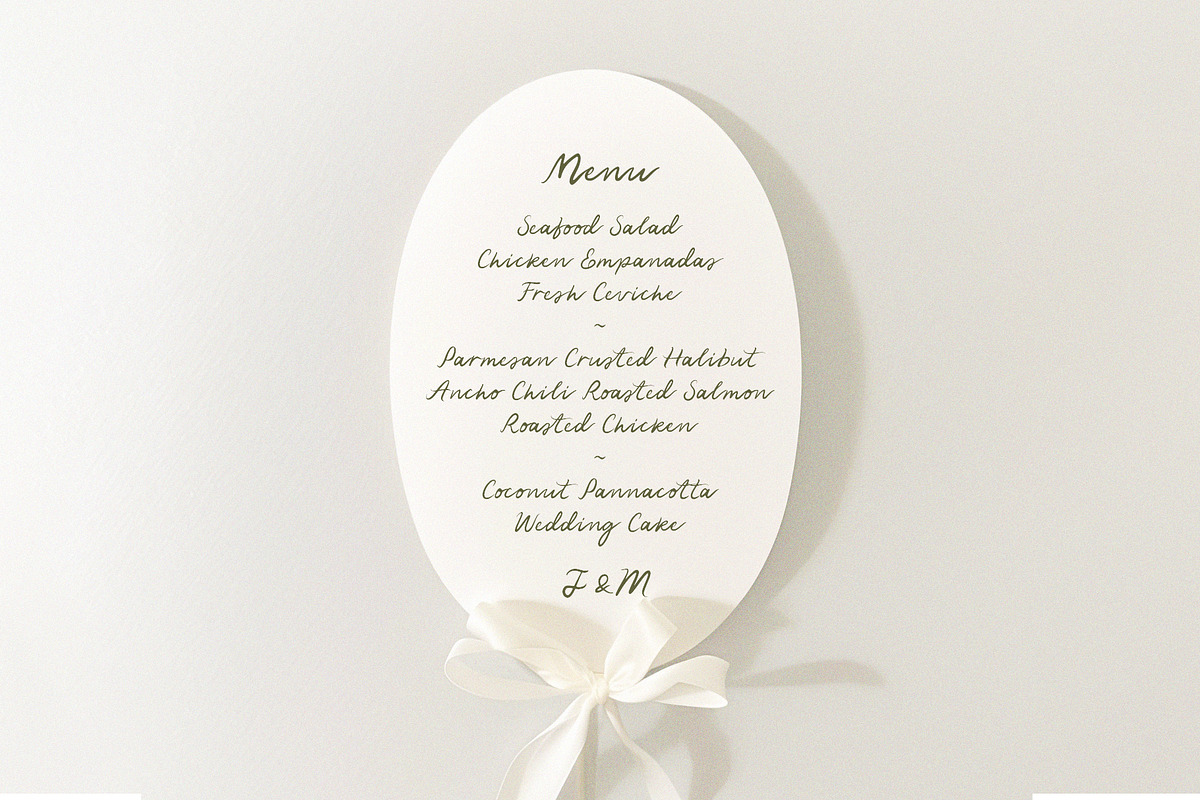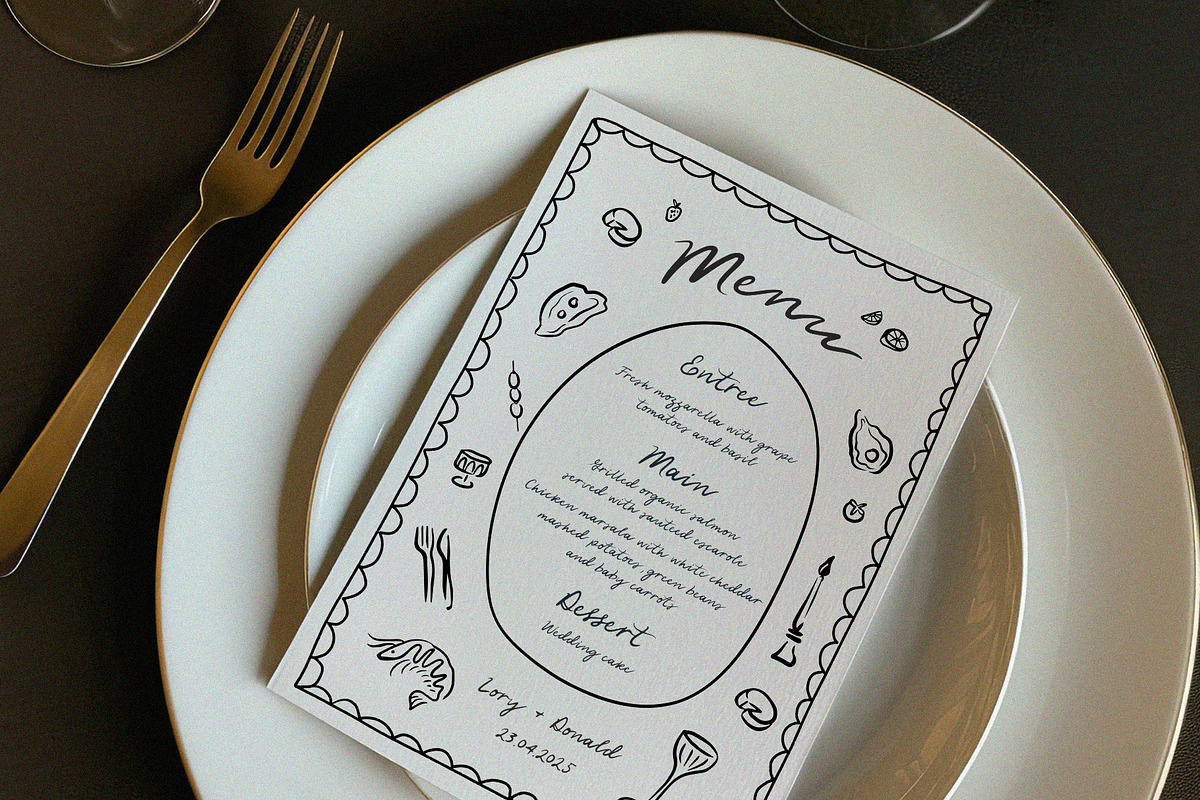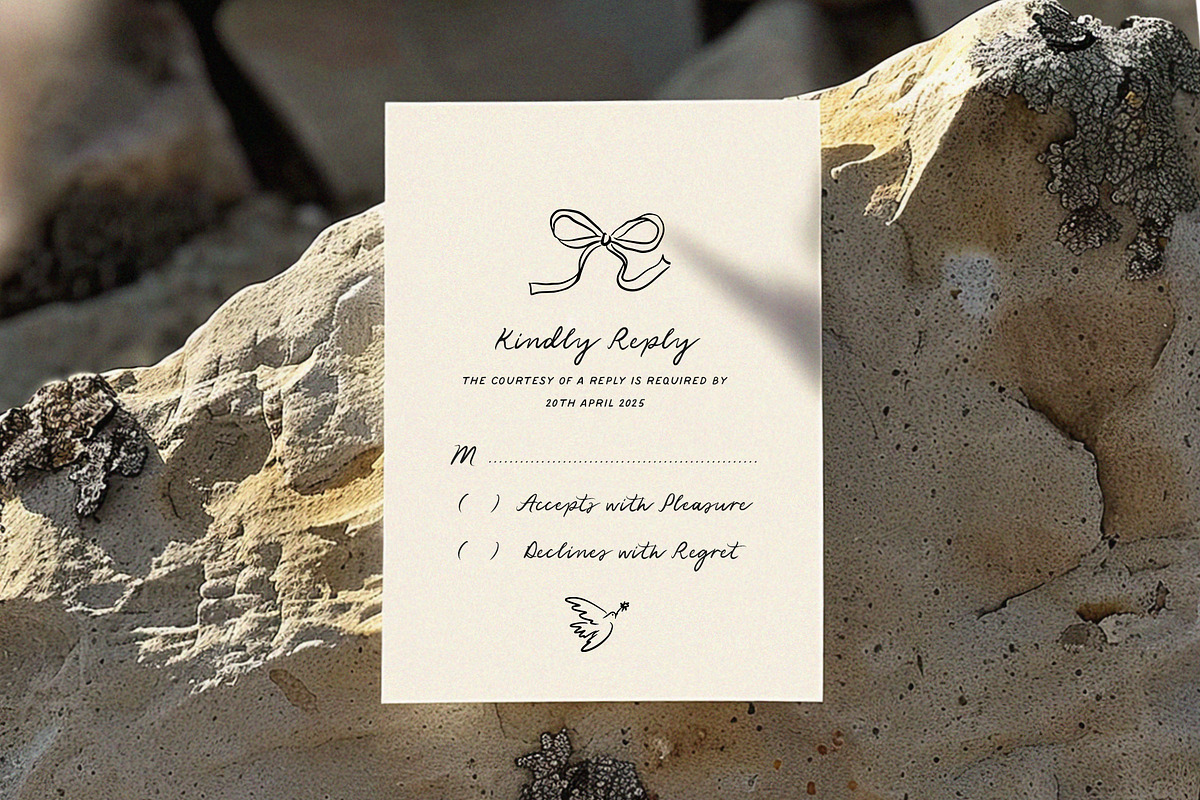
Rose Mary is a new handwritten font that will be perfect on your wedding invitations in 2024-2025 wedding season. It is perfect suited for a wide variety of projects, as to signature, stationery, logo, wedding, typography quotes, magazine or book cover, website header, clothing, branding, packaging design and more.